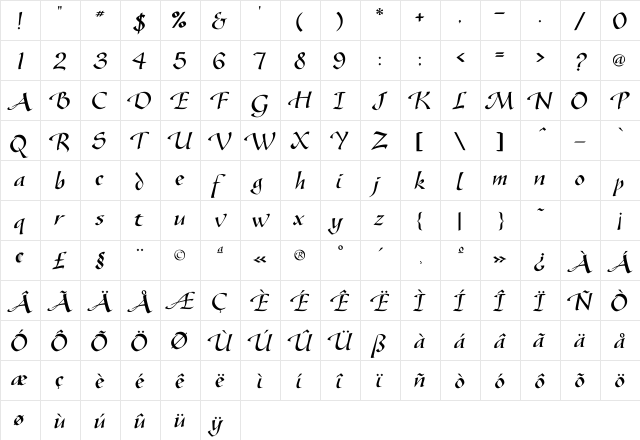
Gasteur Regular
Design Context for Gasteur Typeface
Gasteur takes a measured approach to typography — its balanced proportions and neutral character make it a reliable workhorse for both digital and print work.